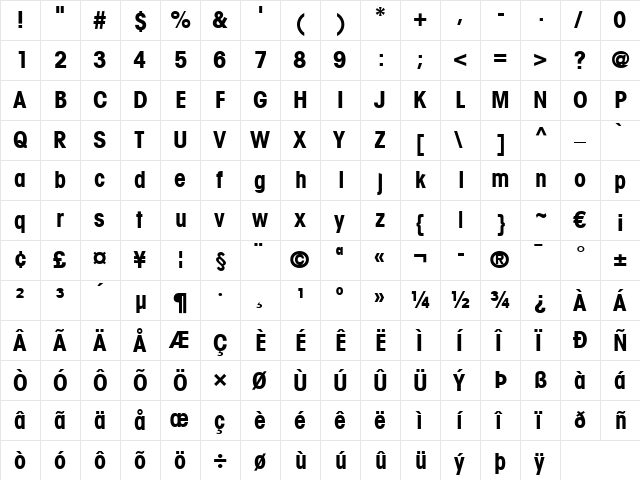
AvantGarde LT CondMedium Bold Font Preview
Design Context for AvantGarde LT CondMedium Typeface
AvantGarde LT CondMedium offers clean, dependable letterforms without strong stylistic allegiance, making it a practical choice for designers who need flexibility. Its bold stroke weight gives it real presence on the page. Its narrow stance lets it pack a punch even in space-constrained designs.